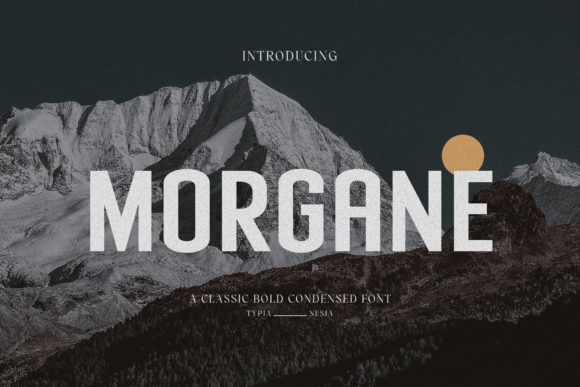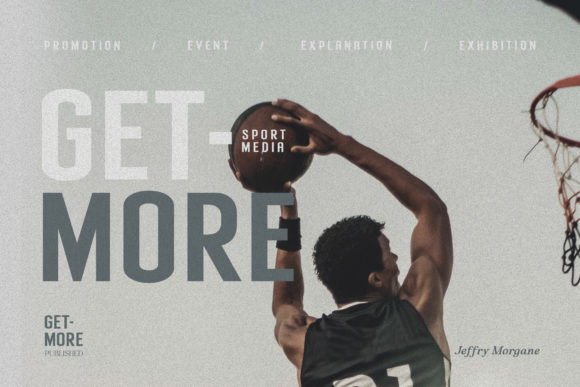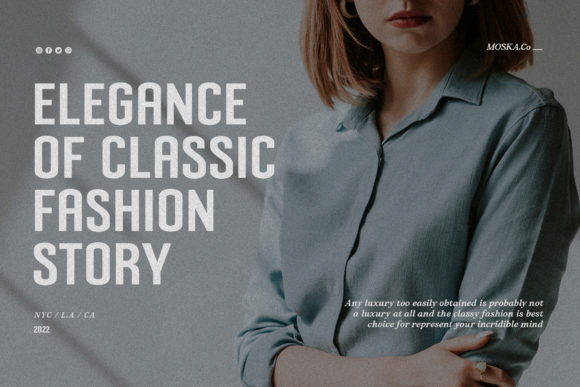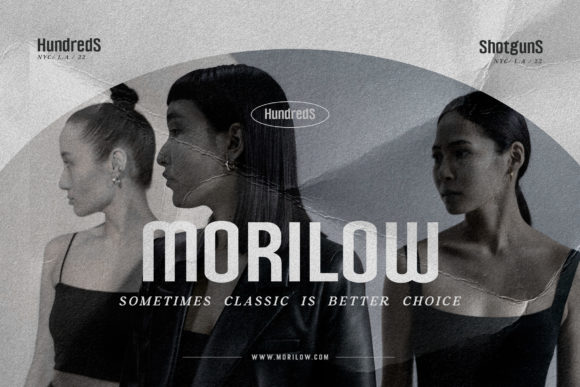
Morgane Font: Bold Sans Serif Typography for Sport & Modern Logo Design
About the Morgane Font
Introducing the Morgane Font, a beautifully crafted typeface designed to elevate your creative projects. Morgane is a classic and retro styled sans serif font.
It is perfect for any branding project such as logos, t-shirt printing, creative products, and more. It will look extraordinary in a variety of contexts.
Morgane’s retro styling and strong character make it ideal for headlines, logos, and short-form text on posters or packaging. Its bold forms work well for eye-catching branding elements, particularly for projects with a vintage or retro aesthetic. Avoid using Morgane for large blocks of body text or user interfaces; its condensed nature and slightly high x-height can hinder readability in extended passages.
Pairing Morgane effectively depends on the desired effect. For a balanced and classic feel, consider pairing it with a neutral serif like Garamond or a geometric sans-serif such as Futura. To emphasize its retro vibe, a playful script font such as Pacifico could work well, while a more modern sans-serif like Montserrat could offer a contemporary contrast.
Its core personality is confident and bold, yet retains a playful retro charm, making it suitable for brands projecting a vintage-inspired, yet contemporary image. This makes it well-suited for projects in fashion, food and beverage, or entertainment where a strong visual identity is crucial.